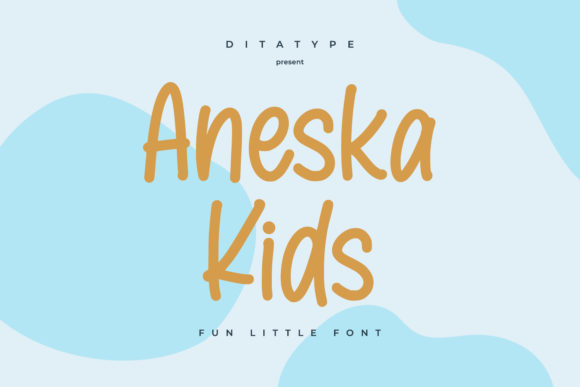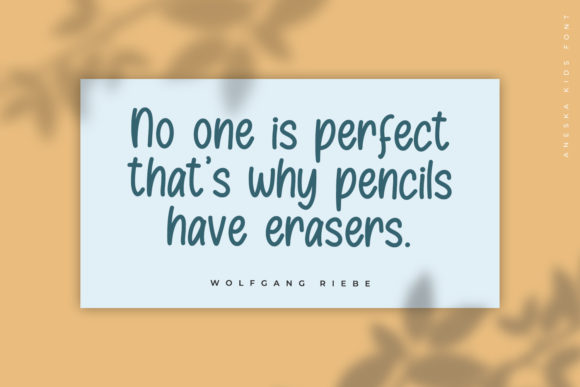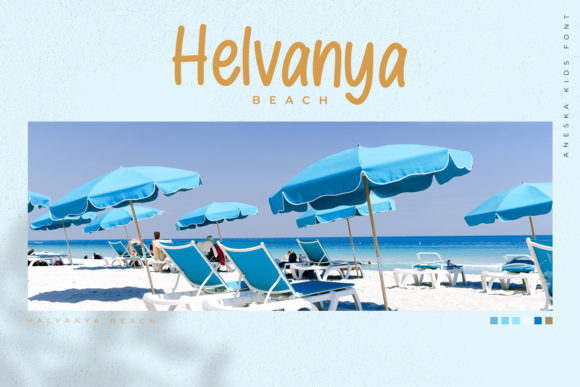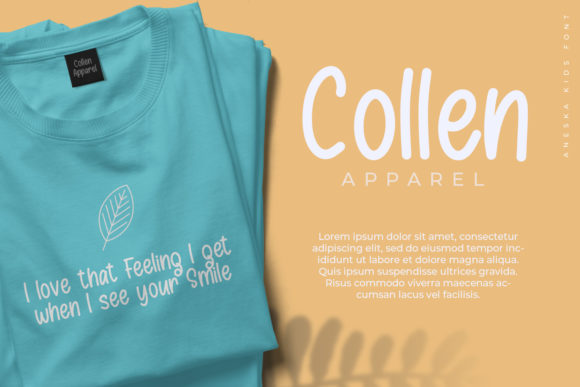
Aneska Kids Font
About the Aneska Kids Font
Elevate your designs with Aneska Kids Font, a font that combines sophistication with readability. Aneska Kids is a unique display font. It maintains its classy calligraphic influences while feeling contemporary and fresh. This versatility will appeal to a wide range of crafty ideas, from letterheads and titles, to stationery.
Aneska Kids excels as a display font for headlines, logos, and short text elements in children’s books, branding for playful products, and eye-catching packaging designs. Its calligraphic nature lends itself well to projects requiring a touch of elegance and sophistication, but its contemporary feel prevents it from appearing dated. Avoid using it for body text or lengthy paragraphs; the unique letterforms can become difficult to read in extended use.
Pairing Aneska Kids with a clean sans-serif like Open Sans for body text creates a strong visual hierarchy. For a more playful feel, consider pairing it with a rounded geometric sans-serif such as Poppins. A contrasting serif like Merriweather can add a touch of traditional elegance to balance its modern calligraphic style.
Its overall personality is friendly, charming, and slightly whimsical, yet sophisticated enough for upscale children’s brands or projects requiring a touch of classic style.
Aneska Kids Font Usage Examples
Aneska Kids Font Example